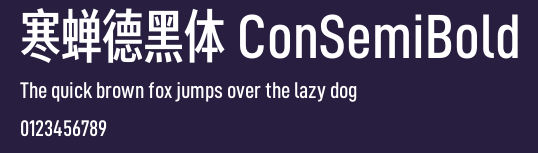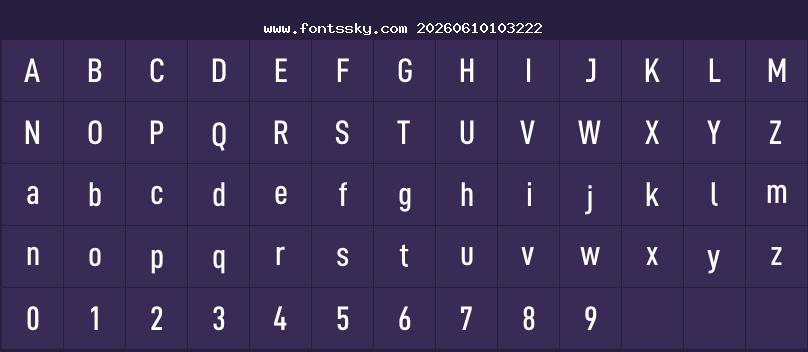
About 寒蝉德黑体 ConSemiBold.otf
寒蝉德黑体 ConSemiBold.otf is a modern, elegant sans-serif font designed for ultimate readability and visual harmony. Perfect for branding, headlines, web design, and print materials.